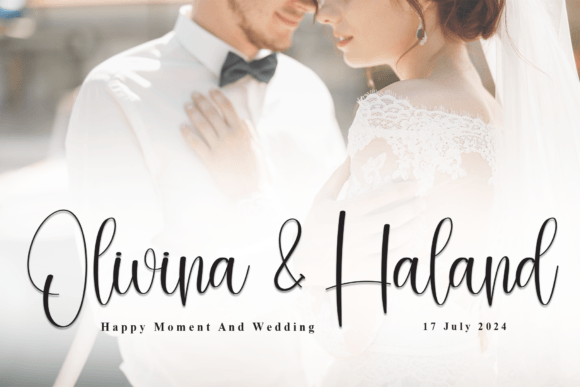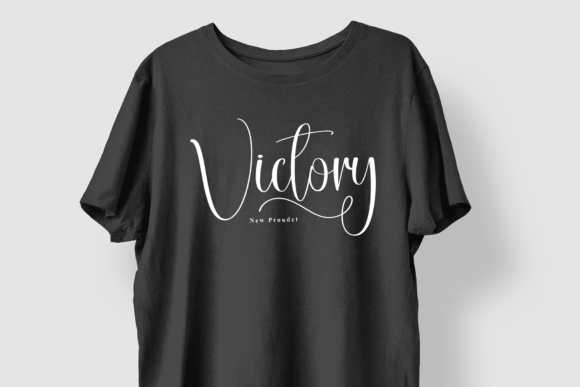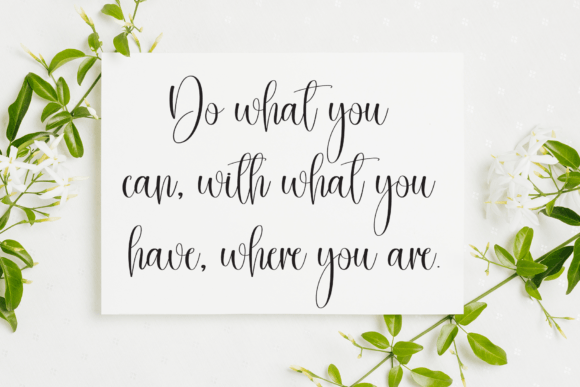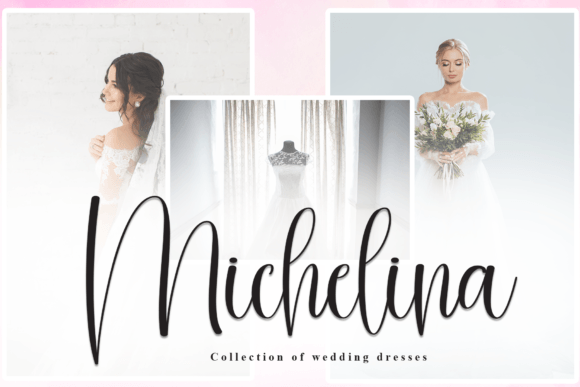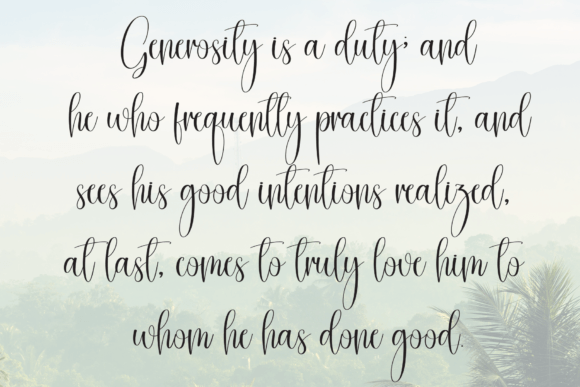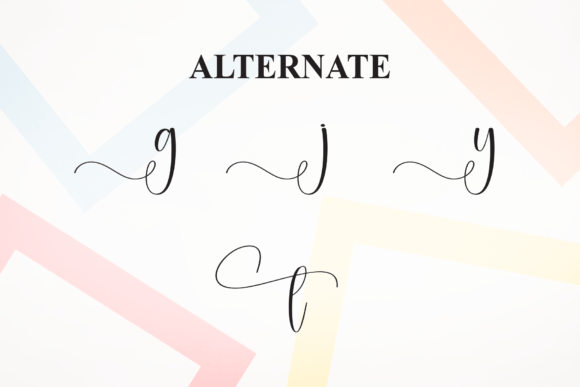
The Magic of Geometry Font: Elevate Your Designs with Elegance
I’ll never forget the moment I stumbled upon the perfect font for a client’s wedding invitation project. I had been searching for what felt like an eternity, trying out font after font, but nothing seemed quite right. That was until I discovered Geometry Font – a magical script font that added a touch of elegance to the design. In this article, I’ll share my experience with Geometry Font, its features, and how to make the most of it in your designs.
As a designer, I’m always on the lookout for fonts that can help me create stunning visuals. Here’s what I love about Geometry Font:
- ✨ Elegant and sophisticated: Geometry Font has a luxurious feel to it, making it perfect for high-end designs.
- ✅ Versatile: This font can be used for a wide range of projects, from Instagram posts to calligraphy scripts for DIY projects.
- 💫 Highly legible: Even at smaller sizes, Geometry Font remains clear and easy to read.
While Geometry Font is an excellent choice, it’s not without its quirks:
- ⚠️ Limited use in very formal or traditional designs: Geometry Font’s elegant nature might not be suitable for very formal or traditional designs.
- 🤔 Occasional kerning issues: As with any font, there might be some kerning issues, especially when using it at larger sizes.
- Experiment with OpenType features, such as ligatures and stylistic alternates, to add more flair to your design.
The Story Behind Geometry Font: Designer Inspiration
Geometry Font was created by a talented type designer who aimed to craft a font that would bring a touch of elegance to any design project. Inspired by the beauty of geometric shapes and the flowing curves of calligraphy, the designer carefully crafted each letterform to ensure that Geometry Font would be both versatile and sophisticated.
| What makes Geometry Font unique? | Geometry Font’s unique blend of elegance and versatility makes it an excellent choice for a wide range of design projects. |
| Is Geometry Font suitable for body text? | While Geometry Font is highly legible, it’s best suited for headings, titles, or short paragraphs. For longer body text, you might prefer a more traditional serif or sans-serif font. |
| Can I use Geometry Font for digital designs? | Absolutely! Geometry Font works beautifully for digital designs, including social media graphics, website headers, and more. |